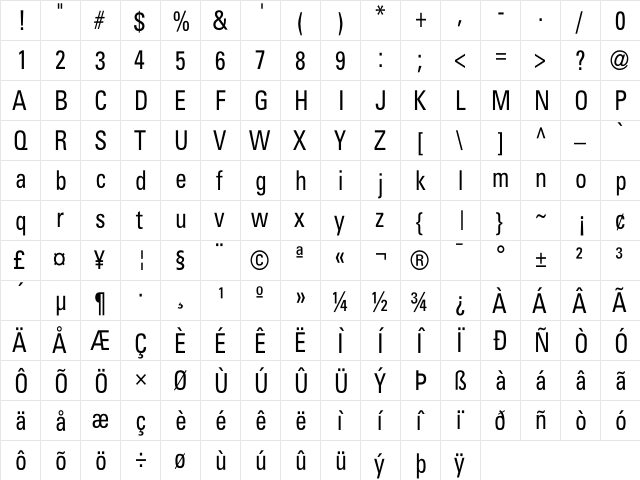
Beetham Condensed
Design Context for Beetham Typeface
Beetham offers clean, dependable letterforms without strong stylistic allegiance, making it a practical choice for designers who need flexibility. The condensed width makes it efficient for tight spaces without sacrificing legibility.